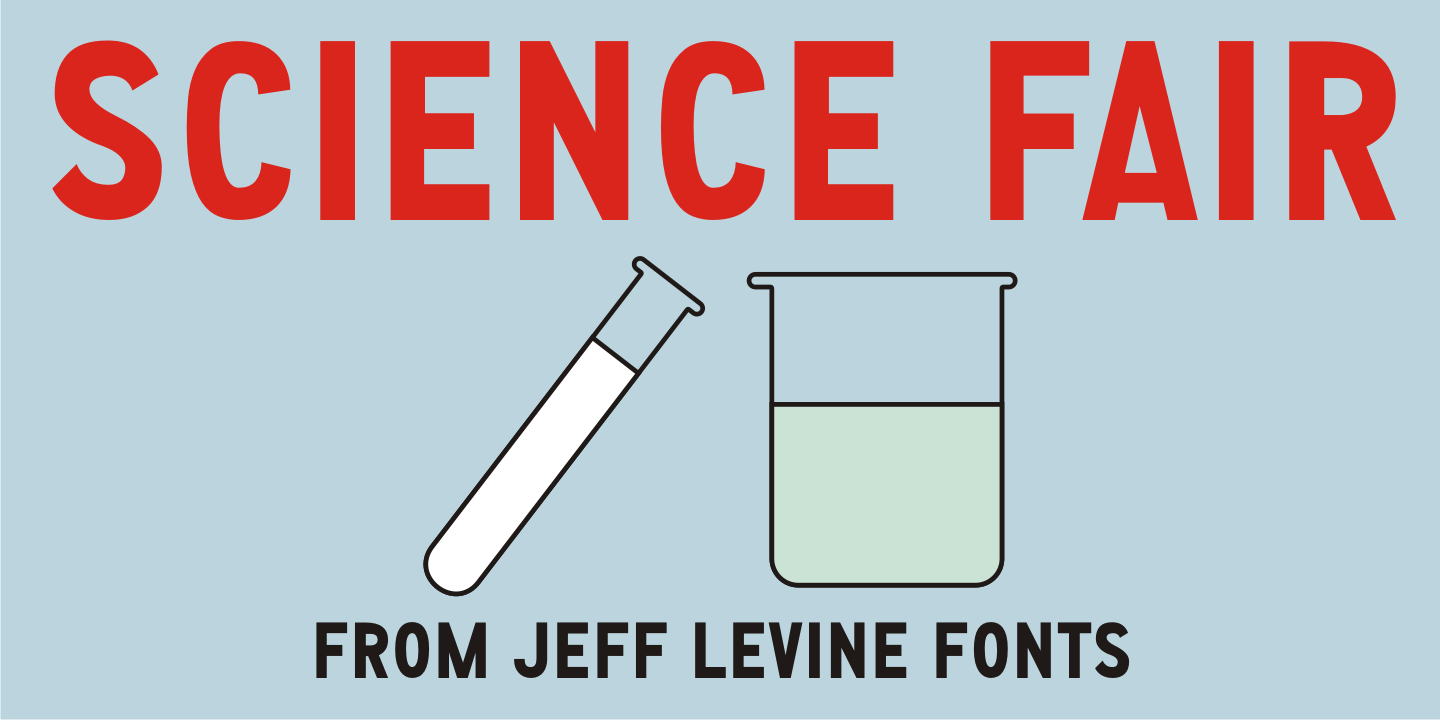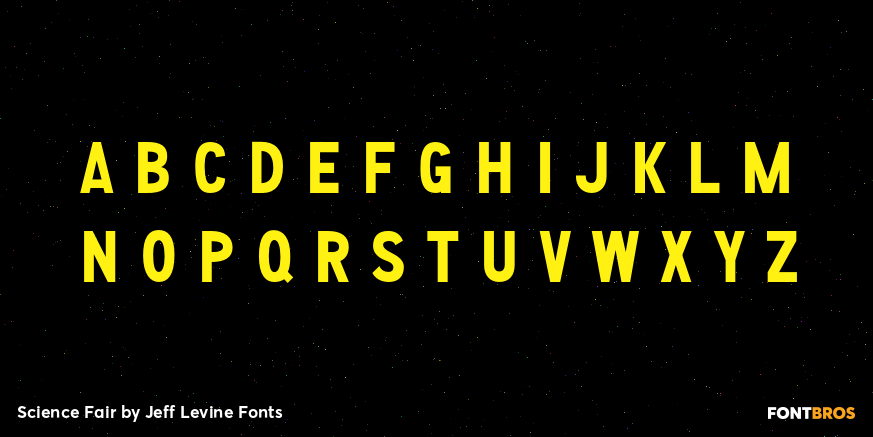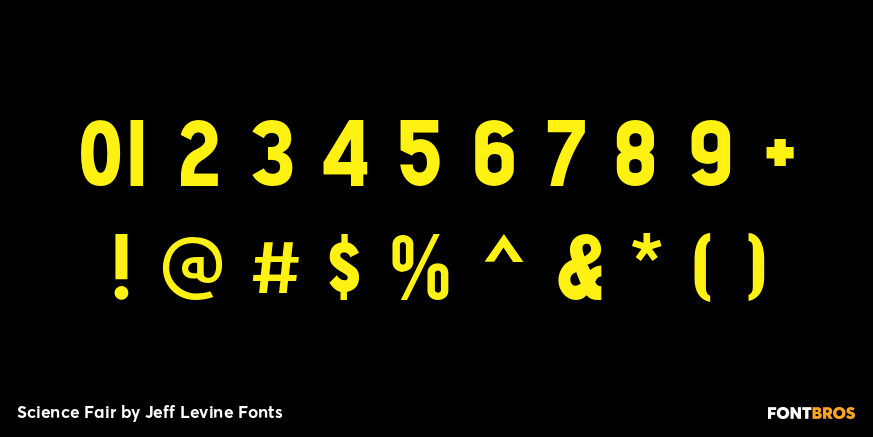
Science Fair
Science Fair JNL emulates the effect of connecting the broken lines of a stencil alphabet into a solid letter form, such as many students did for posters on their science project.
In this case, the base font was Jeff Levine's Paramilitary JNL.
Science Fair by Jeff Levine Fonts